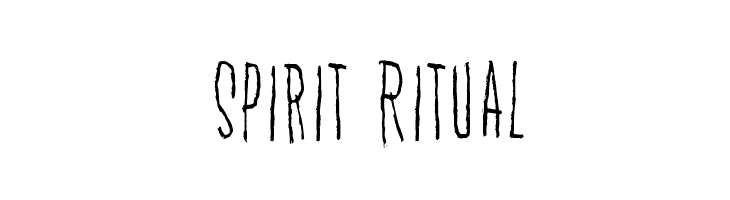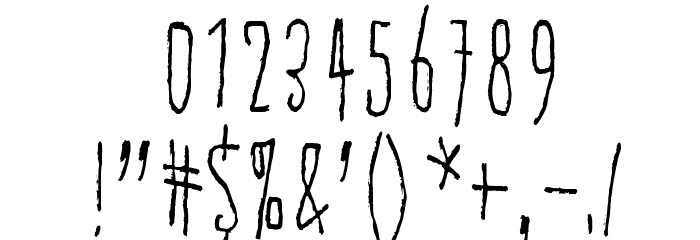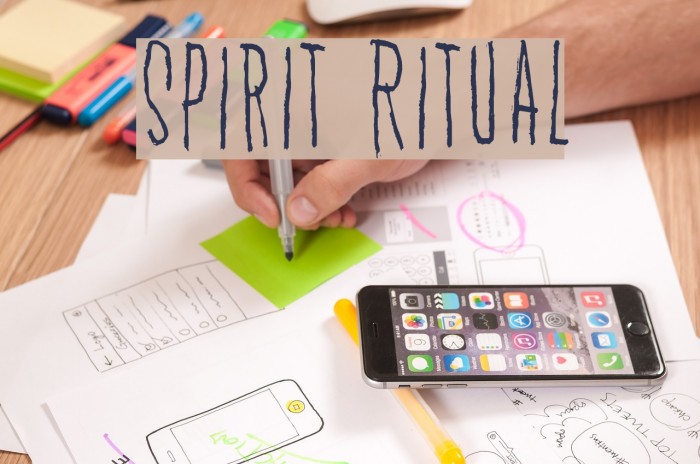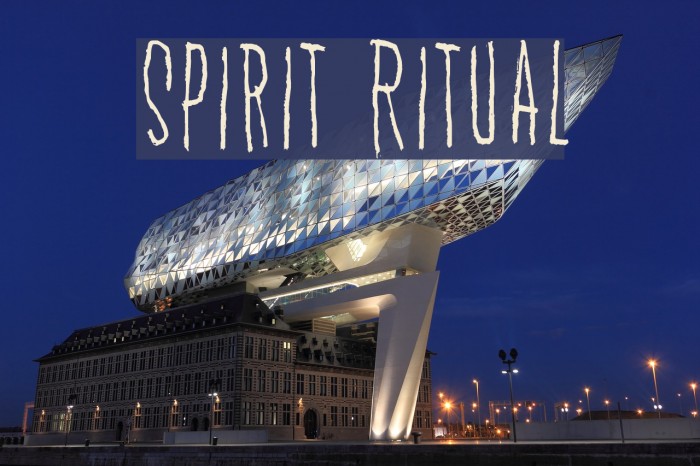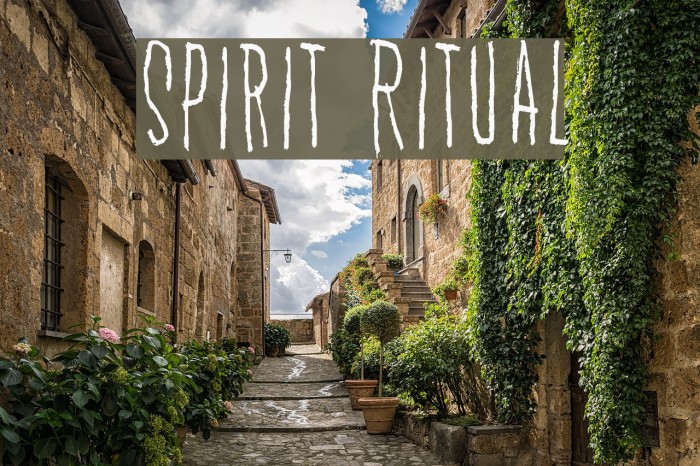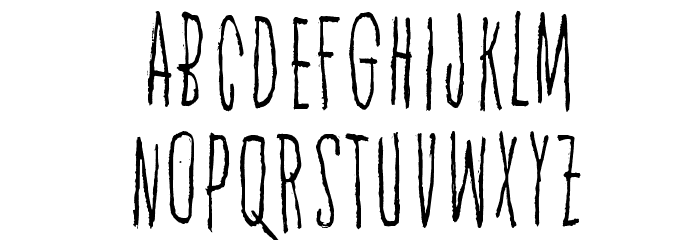
Spirit Ritual Font
This font features a hand-drawn, rustic aesthetic with uneven strokes and a slightly distressed appearance. The characters are tall and narrow, giving them a unique, elongated look. The uppercase and lowercase letters maintain a consistent style, with a playful, organic feel. Numbers and special characters are included, matching the overall design. The font's irregularities add charm and personality, making it suitable for projects that require a touch of authenticity and creativity.
A hand-drawn, rustic font with tall, narrow characters and a distressed look.